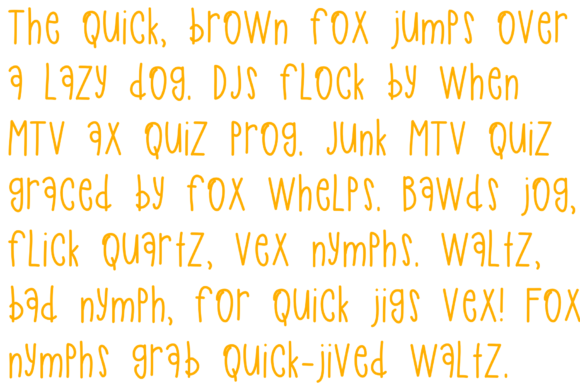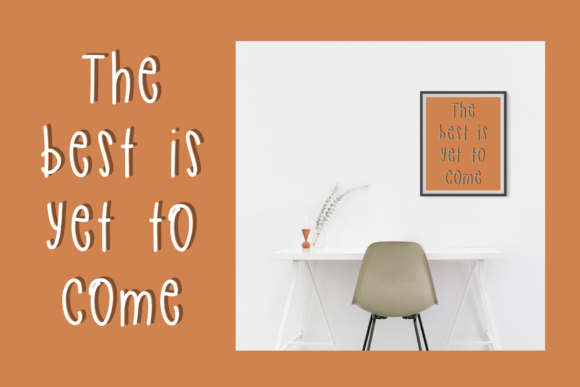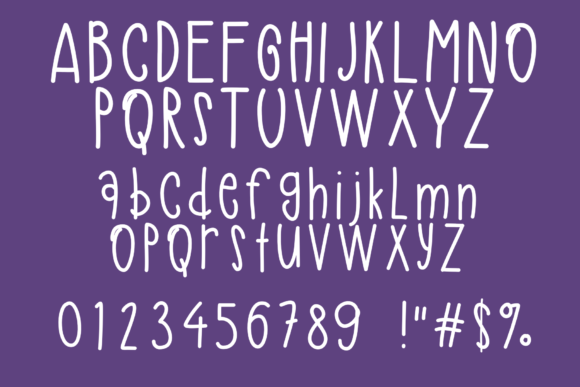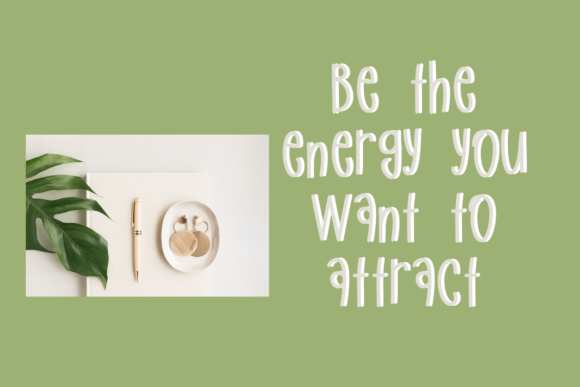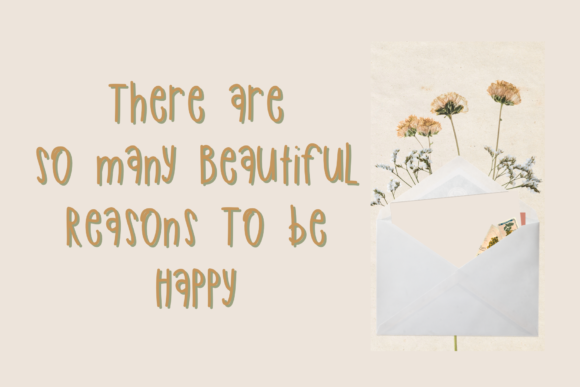
Introducing Annabelle Font: Add a Joyful Touch to Your Designs
Are you looking for a font that can add a playful and whimsical touch to your designs? Look no further than the Annabelle font! This cute and quirky handwritten font is perfect for designers and crafters who want to make their creative projects stand out. In this article, we’ll take a closer look at the Annabelle font, its features, and how you can use it to elevate your designs.
What is Annabelle Font?
Annabelle is a beautiful, handwritten font that exudes joy and playfulness. Its unique and quirky style makes it perfect for a wide range of design projects, from invitations and greeting cards to posters and social media graphics. The font’s irregularities and imperfections give it a charming, hand-crafted feel that’s sure to delight your audience.
Key Features of Annabelle Font
- Cute and Quirky Style: Annabelle font has a unique, handwritten style that’s both playful and charming.
- Handwritten Imperfections: The font’s irregularities and imperfections give it a natural, hand-crafted feel.
- Highly Readable: Despite its quirky style, Annabelle font is highly readable, making it perfect for body text and headings.
- Multilingual Support: Annabelle font supports multiple languages, making it a great choice for designers working on international projects.
How to Use Annabelle Font in Your Designs
Annabelle font is incredibly versatile and can be used in a wide range of design projects. Here are some ideas to get you started:
- Invitations and Greeting Cards: Add a personal touch to your invitations and greeting cards with Annabelle font.
- Posters and Flyers: Use Annabelle font to create eye-catching posters and flyers for events, promotions, and more.
- Social Media Graphics: Add a playful touch to your social media graphics, such as quote graphics, Facebook posts, and Instagram stories.
- Branding and Packaging: Use Annabelle font to create unique and memorable branding and packaging designs.
Tips for Using Annabelle Font Effectively
Here are some tips for using Annabelle font effectively in your designs:
- Pair with Other Fonts: Pair Annabelle font with other fonts to create a unique and visually appealing combination.
- Use in Moderation: Use Annabelle font in moderation to avoid overwhelming your design.
In conclusion, Annabelle font is a beautiful, handwritten font that’s perfect for designers and crafters who want to add a playful and whimsical touch to their designs. Its unique and quirky style, highly readable, and multilingual support make it a great choice for a wide range of design projects. By following the tips outlined in this article, you can use Annabelle font to create stunning designs that stand out from the crowd.
- What is Annabelle font?: Annabelle font is a cute and quirky handwritten font.